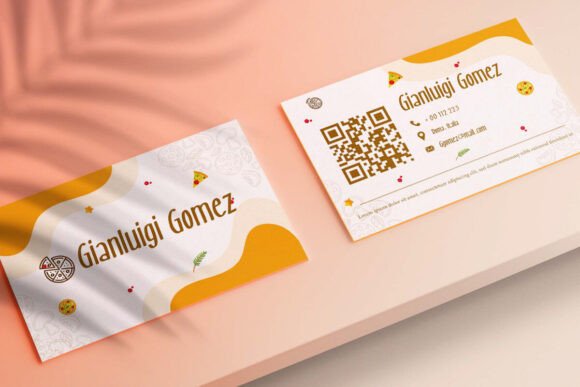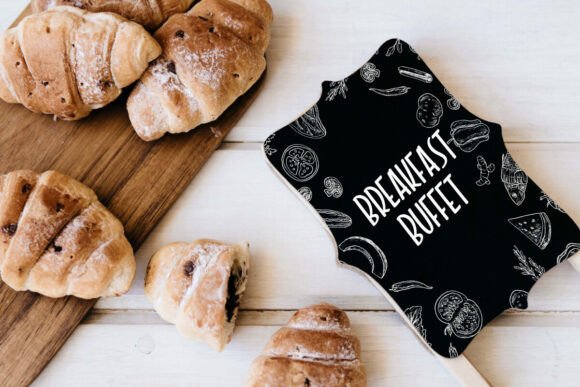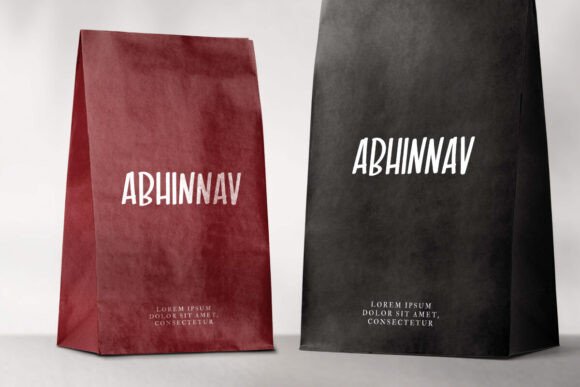
Introduction to Sauce Macaroni Font
Have you ever stared at a blank canvas, waiting for the perfect design to come to life? That’s exactly what happened to me the last time I was working on a creative project. I was searching for the perfect font to add that extra oomph to my design, and then I stumbled upon the Sauce Macaroni Font. Its playful, easy-to-read style immediately caught my eye, and I knew I had found the perfect addition to my project.
The Sauce Macaroni Font is more than just a pretty face – it’s a valuable design resource that can elevate any project. With its simple yet unique style, it’s perfect for complementing other fonts and adding a touch of personality to your designs. Whether you’re working on a brand image, brochure, or menu board, this font is sure to make your designs stand out. And the best part? It’s available for free download, making it an accessible high-quality design resource for designers of all levels.
Key Features of Sauce Macaroni Font
- High-quality, bold, and playful font suitable for creative projects
- Perfect design resource for creating eye-catching titles, headings, and logos
- Designed with a unique, hand-drawn style that adds a personal touch to any project
Honest Review: Sauce Macaroni Font
As a designer, I’m always on the lookout for unique and high-quality design resources to elevate my creative projects. Recently, I had the chance to work with the Sauce Macaroni Font, and here’s my honest review.
- ✨ The font’s quirky, playful nature makes it perfect for adding a touch of whimsy to any design project.
- ✨ The high-quality design ensures that the font looks great on both screen and print.
- ✨ The transparent background makes it easy to customize and layer with other design elements.
Overall, I’m impressed with the Sauce Macaroni Font’s unique design and high-quality execution. While it may have some limitations, it’s a great design resource for personal projects or small-scale commercial projects. If you’re looking for a fun and playful font to add some personality to your design, the Sauce Macaroni Font is definitely worth checking out.
Tips for Getting the Most Out of Sauce Macaroni Font
To get the most out of the Sauce Macaroni Font, experiment with different font sizes, colors, and alignments to create visually appealing designs. Use the font in conjunction with other design elements to add depth and interest to your creative project.
The Sauce Macaroni Font is ideal for use in various creative projects, including invitations, posters, social media graphics, and more. Its unique design and high-quality texture make it a great choice for designers looking to add a personal touch to their designs.